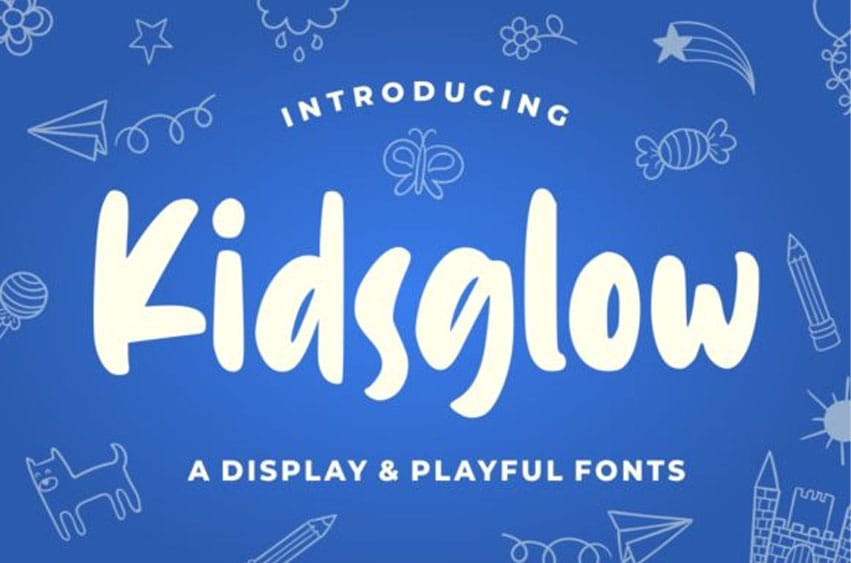
Kidsglow Font is the perfect font for all designs in need of a fun twist. The main font file is equipped with ordinary characters (A-Z, a-z, 0-9, ligature and lots of punctuation), as well as more than 350 glyphs to support most Latin-based languages.
On top of it, it features some fun ligatures that will make any kids-themed project stand out!